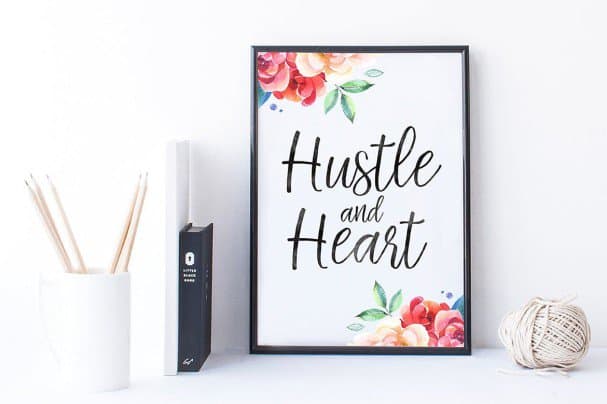
Be Bright Script Font
Here is the Be Bright Script Font this isis utilized in Windows. This is also known as bright sight font. This font makes the content material look stylish.
Style Of Be Bright Script Font Free